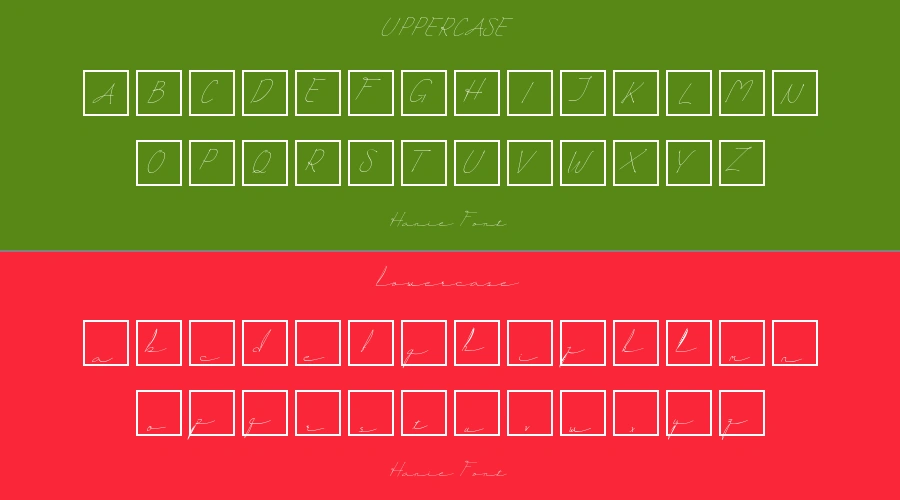
About Hanie Font
Hanie Font represents a sophisticated approach to type design, balancing pen-inspired details with reading comfort. Perfect for merchandise graphics, this font family showcases impressive impact and consumer connection throughout its character set. Designers appreciate its versatility and reliability.
Designers will appreciate nuanced touches including distinctive terminals and arrow sets, adding sophistication to any project. These features become apparent in sidebars, where detail retention matters most. The careful treatment of terminal style and character ensures optimal performance.